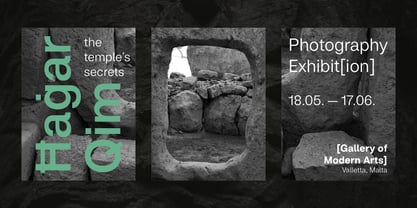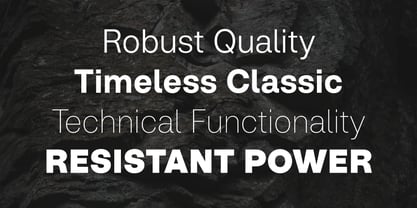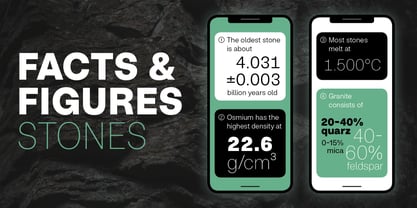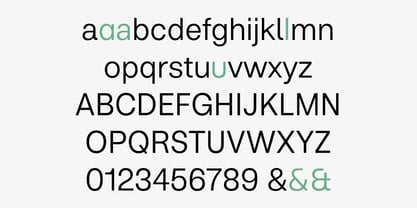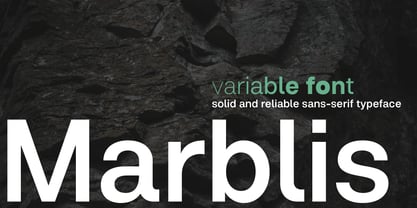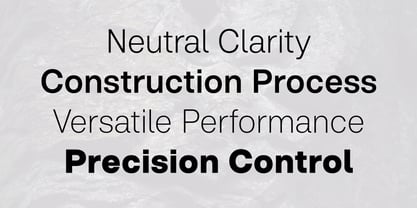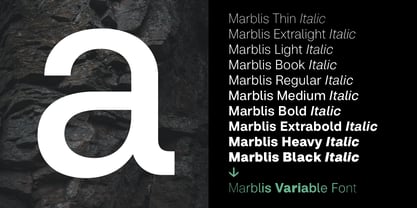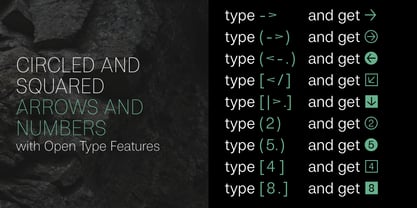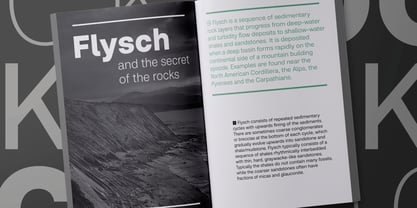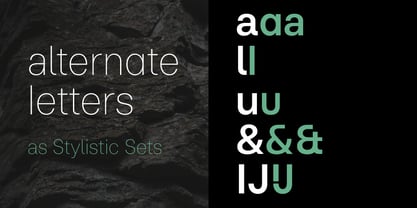
Marblis Variable
by Fincker Font Cuisine
The Marblis Variable Font Family was designed by Julien Fincker and published by Fincker Font Cuisine. Marblis Variable contains 1 styles. More about this family
Marblis – A modern sans serif font for clear and reliable communication Marblis is a modern and personal take on the classic grotesque typeface genre. With its clear, neutral forms, it appears solid and reliable – a font with stability and attitude. Developed for the highest functionality and performance, it offers exceptional versatility with ten weights plus italics and over 1410 glyphs – ideal for corporate design, editorial, signage systems and many other areas of use. Marblis is a safe choice for a wide range of typographic challenges – versatile, precise and always reliable, whether for print or screen. It does not immediately come to the fore, but ensures that the focus always remains on the content.
Designers: Julien Fincker
Foundry: Fincker Font Cuisine